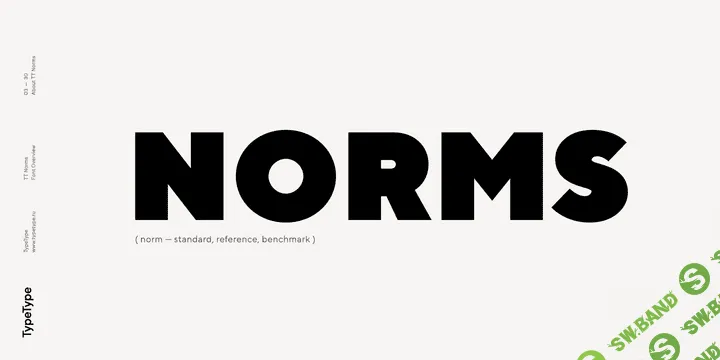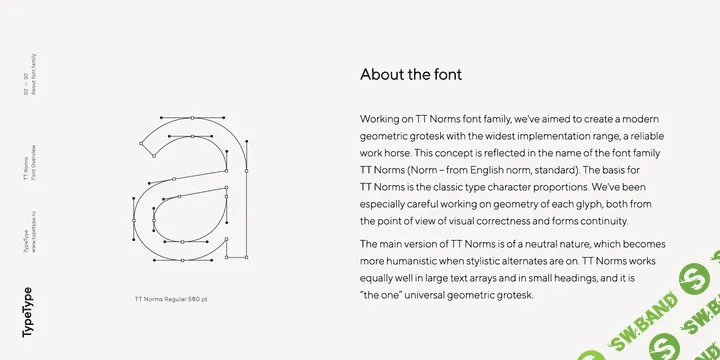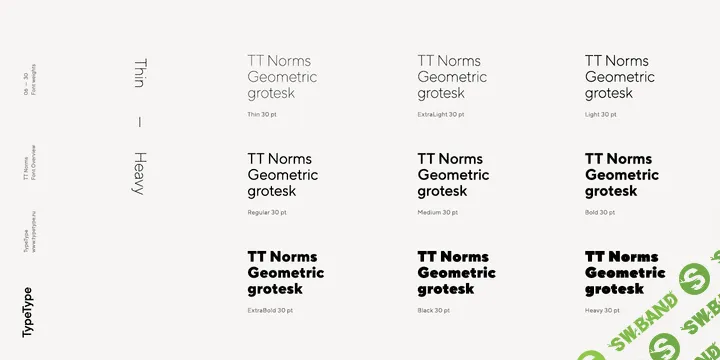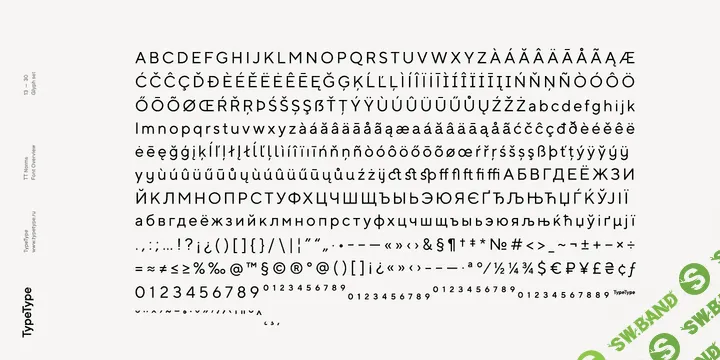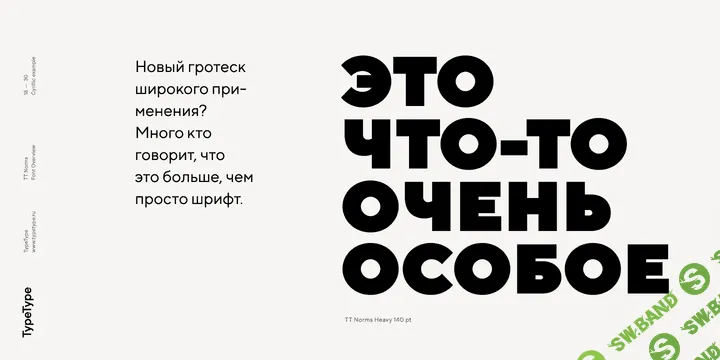
Название: TT Norms Font
About this font family
Working on TT Norms font family, we've aimed to create a modern geometric grotesk with the widest implementation range, a reliable workhorse. This concept is reflected in the name of the font family TT Norms (Norm – from English norm, standard). The basis for TT Norms is the classic type character proportions. We've been especially careful working on geometry of each glyph, both from the point of view of visual correctness and forms continuity.